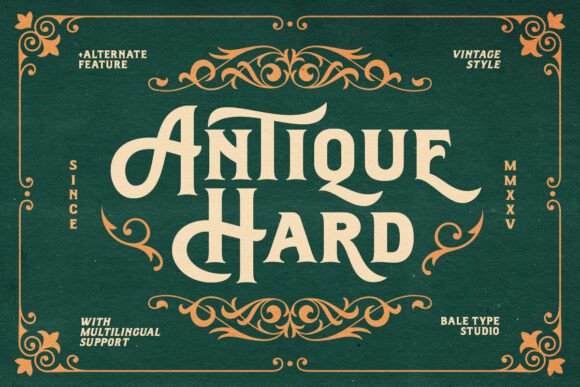
Introducing Antique Hard Font: A Bold Vintage-Inspired Typeface
Are you looking for a font that exudes classic charm and nostalgia? Look no further than Antique Hard Font, a bold vintage-inspired typeface that draws from the artistry of classic sign painting and Victorian-era design. With its strong, solid presence and old-school appeal, Antique Hard is perfect for a variety of design projects that require a touch of elegance and sophistication.
Key Features of Antique Hard Font
- Bold and Solid Presence: Antique Hard Font boasts a sturdy and robust design, making it perfect for headlines, logotypes, and other applications where a strong visual impact is desired.
- Vintage-Inspired: This font draws inspiration from classic sign painting and Victorian-era artistry, giving it a unique and nostalgic charm.
- Multi-Language Support: Antique Hard Font supports multiple languages, making it a versatile choice for designers working on international projects.
- Perfect for Various Design Projects: Whether you’re working on invitations, packaging, branding, or other design projects, Antique Hard Font is an excellent choice for adding a touch of old-school elegance.
Ideal Design Applications for Antique Hard Font
Antique Hard Font is a versatile typeface that can be used in a variety of design applications, including:
- Headlines and Titles: The font’s bold and solid presence makes it perfect for headlines and titles that require a strong visual impact.
- Logotypes and Branding: Antique Hard Font’s unique and nostalgic charm makes it an excellent choice for logotypes and branding projects that require a touch of elegance and sophistication.
- Invitations and Packaging: The font’s vintage-inspired design makes it perfect for invitations, packaging, and other design projects that require a classic and nostalgic look.
Typographic Details of Antique Hard Font
Antique Hard Font is a carefully crafted typeface that features:
- Classic Sign Painting Inspiration: The font draws inspiration from classic sign painting, giving it a unique and nostalgic charm.
- Victorian-Era Artistry: Antique Hard Font’s design is influenced by Victorian-era artistry, making it perfect for designers looking for a vintage-inspired typeface.
- Strong and Solid Presence: The font’s bold and solid presence makes it perfect for headlines, logotypes, and other applications where a strong visual impact is desired.
Multi-Language Support
Antique Hard Font supports multiple languages, making it a versatile choice for designers working on international projects. Whether you’re working on a project that requires support for Western European languages, Cyrillic languages, or other languages, Antique Hard Font has got you covered.
Why Choose Antique Hard Font?
There are many reasons why Antique Hard Font is an excellent choice for designers looking for a vintage-inspired typeface. Here are just a few:
- Unique and Nostalgic Charm: Antique Hard Font’s vintage-inspired design gives it a unique and nostalgic charm that sets it apart from other typefaces.
- Versatility: The font’s bold and solid presence makes it perfect for a variety of design applications, from headlines and titles to logotypes and branding.
- Multi-Language Support: Antique Hard Font supports multiple languages, making it a versatile choice for designers working on international projects.
In conclusion, Antique Hard Font is a bold vintage-inspired typeface that draws from classic sign painting and Victorian-era artistry. With its strong, solid presence and nostalgic charm, Antique Hard is perfect for a variety of design projects that require a touch of elegance and sophistication. Whether you’re working on headlines, logotypes, invitations, packaging, or branding, Antique Hard Font is an excellent choice.